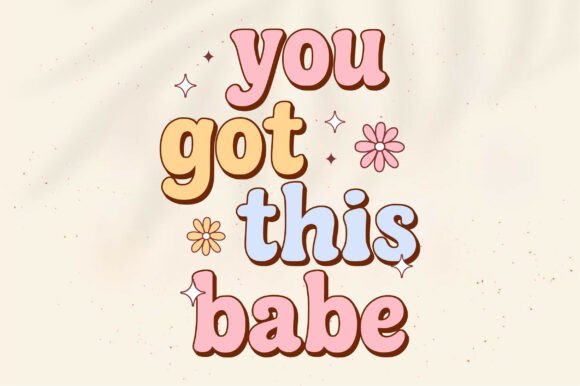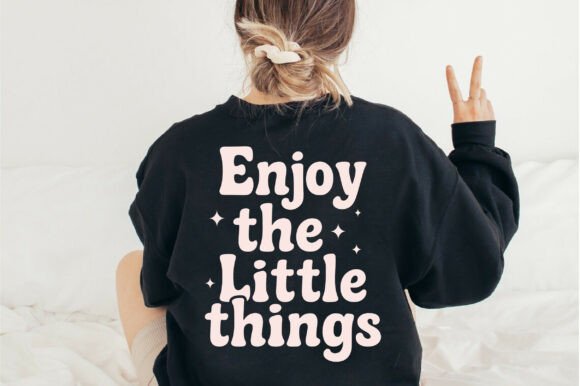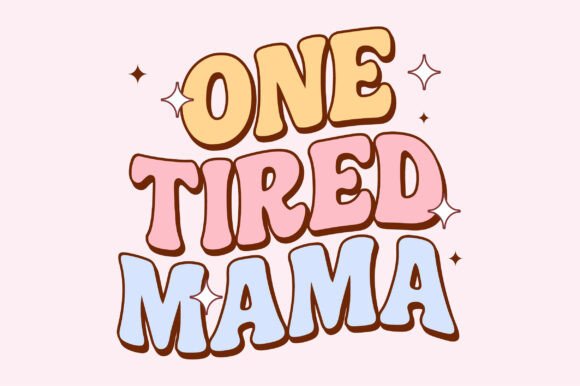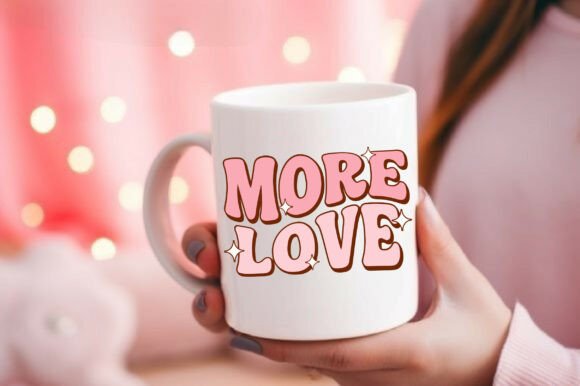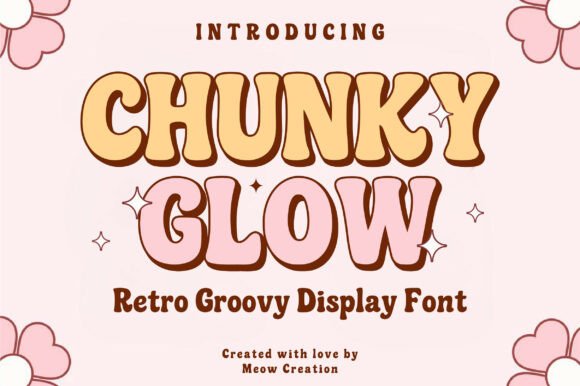
Introducing Chunky Glow Font: The Retro Groovy Display Font That Shines with Playful Charm
Are you looking for a font that adds a touch of warmth and happiness to your designs? Look no further than Chunky Glow, a retro groovy display font that’s perfect for bringing a nostalgic 70s vibe to any project. With its thick, bubbly letters and smooth curves, Chunky Glow is sure to make your words glow with retro flair.
The Characteristics of Chunky Glow Font
Chunky Glow is a display font that boasts a bold personality and playful charm. Its thick, bubbly letters are reminiscent of the classic fonts of the 1970s, while its smooth curves add a touch of modernity. The font’s chunky texture gives it a tactile feel, making it perfect for designs that require a fun and playful touch.
Uses for Chunky Glow Font
Chunky Glow is a versatile font that can be used for a wide range of design projects. Here are some ideas to get you started:
- Posters: Add a touch of retro flair to your posters with Chunky Glow. Whether you’re promoting a concert, a sale, or a event, this font is sure to grab attention.
- T-shirt designs: Create fun and playful T-shirt designs with Chunky Glow. The font’s bold personality and chunky texture make it perfect for statement tees.
- Logos: Use Chunky Glow to create a logo that’s both fun and memorable. The font’s retro vibe makes it perfect for brands that want to evoke a sense of nostalgia.
- Stickers: Add a touch of whimsy to your stickers with Chunky Glow. The font’s playful charm makes it perfect for stickers that require a fun and playful touch.
- Fun quotes: Use Chunky Glow to add a touch of personality to your quotes. Whether you’re creating a social media graphic or a print design, this font is sure to make your words stand out.
Why Choose Chunky Glow Font?
There are many fonts to choose from, but Chunky Glow stands out from the crowd. Here are just a few reasons why:
- Unique personality: Chunky Glow has a bold personality that’s hard to find in other fonts. Its playful charm and retro vibe make it perfect for designers who want to add a touch of whimsy to their designs.
- Versatility: Chunky Glow is a versatile font that can be used for a wide range of design projects. Whether you’re creating a poster, a T-shirt design, or a logo, this font is sure to shine.
- Easy to read: Despite its chunky texture, Chunky Glow is easy to read. The font’s smooth curves and clear lettering make it perfect for designs that require a fun and playful touch.
Tips for Using Chunky Glow Font
Here are a few tips for using Chunky Glow in your designs:
- Use it sparingly: Chunky Glow is a bold font that can be overwhelming if used too much. Use it sparingly to add a touch of personality to your designs.
- Pair it with a simple font: Chunky Glow pairs well with simple fonts that provide a clear contrast. Try pairing it with a sans-serif font for a fun and playful look.
- Experiment with colors: Chunky Glow looks great in a variety of colors. Experiment with different colors to find the one that works best for your design.
Chunky Glow is a retro groovy display font that’s perfect for designers and crafters who want to add a touch of warmth and happiness to their designs. With its thick, bubbly letters and smooth curves, this font is sure to bring a nostalgic 70s vibe to any project. Whether you’re creating a poster, a T-shirt design, or a logo, Chunky Glow is sure to shine. So why wait? Let your words glow with retro flair using Chunky Glow!